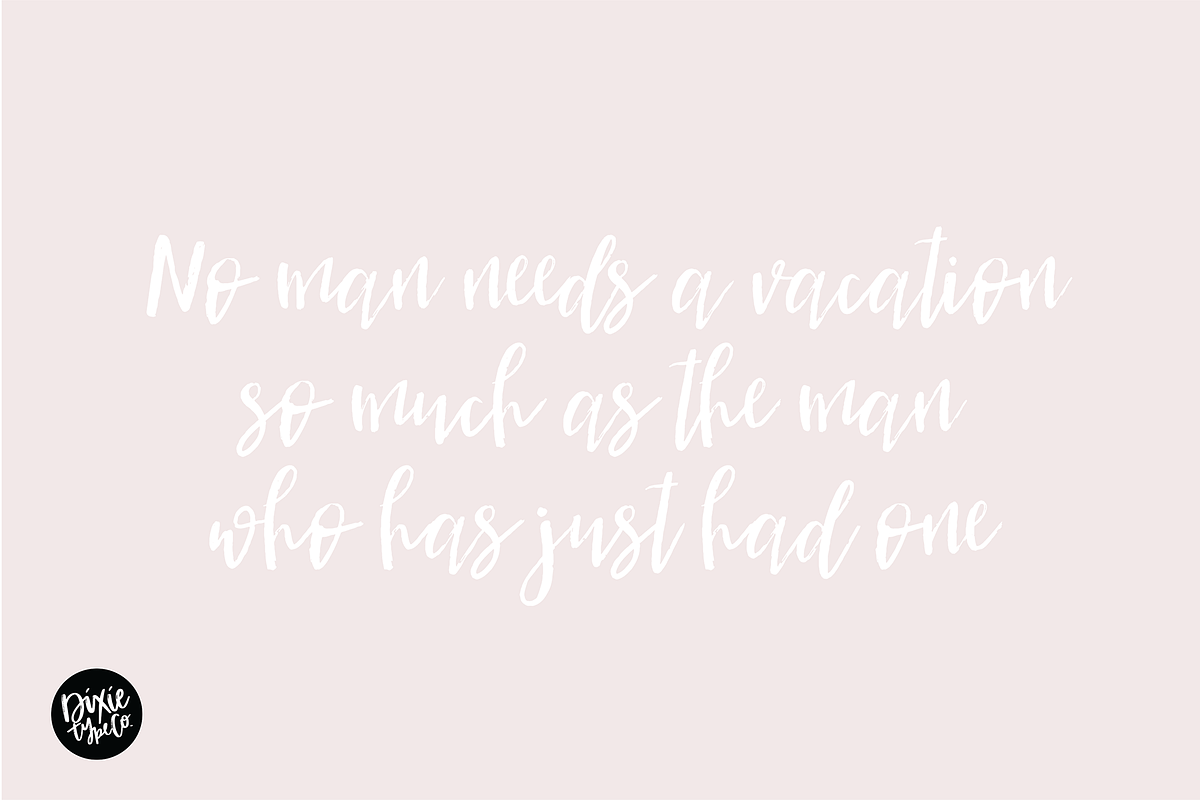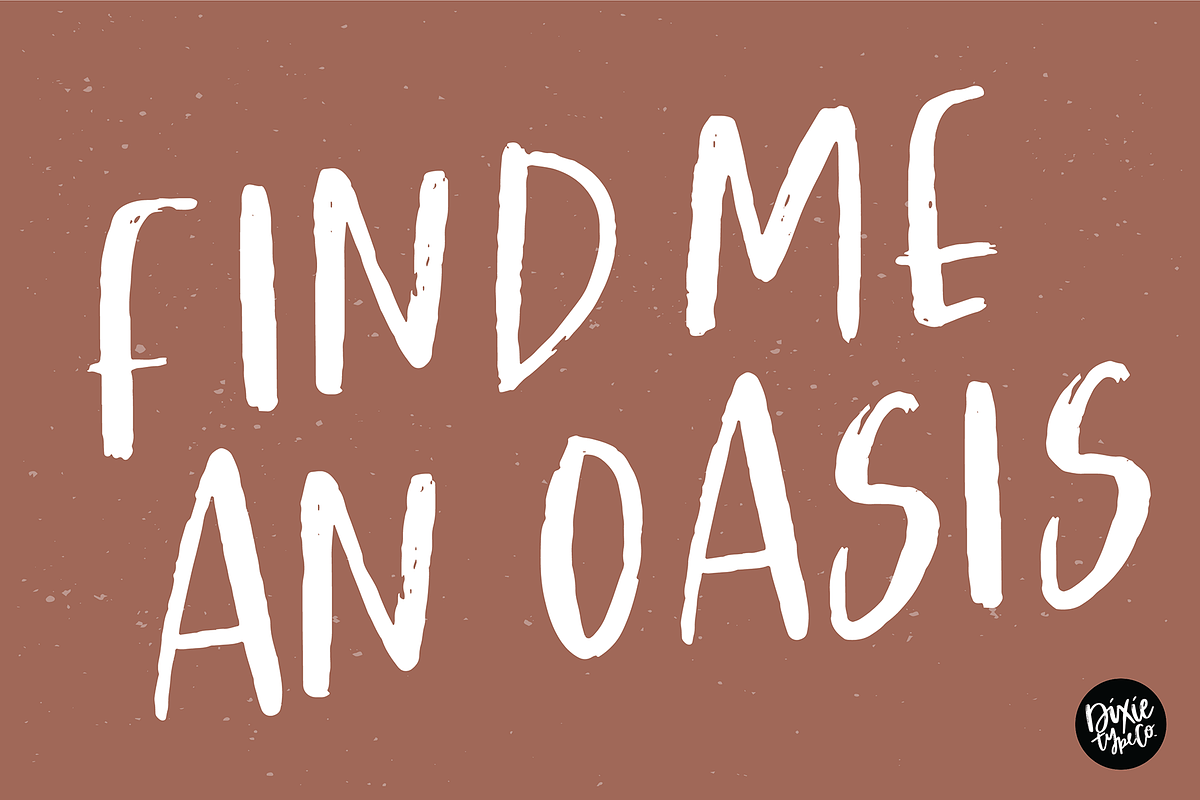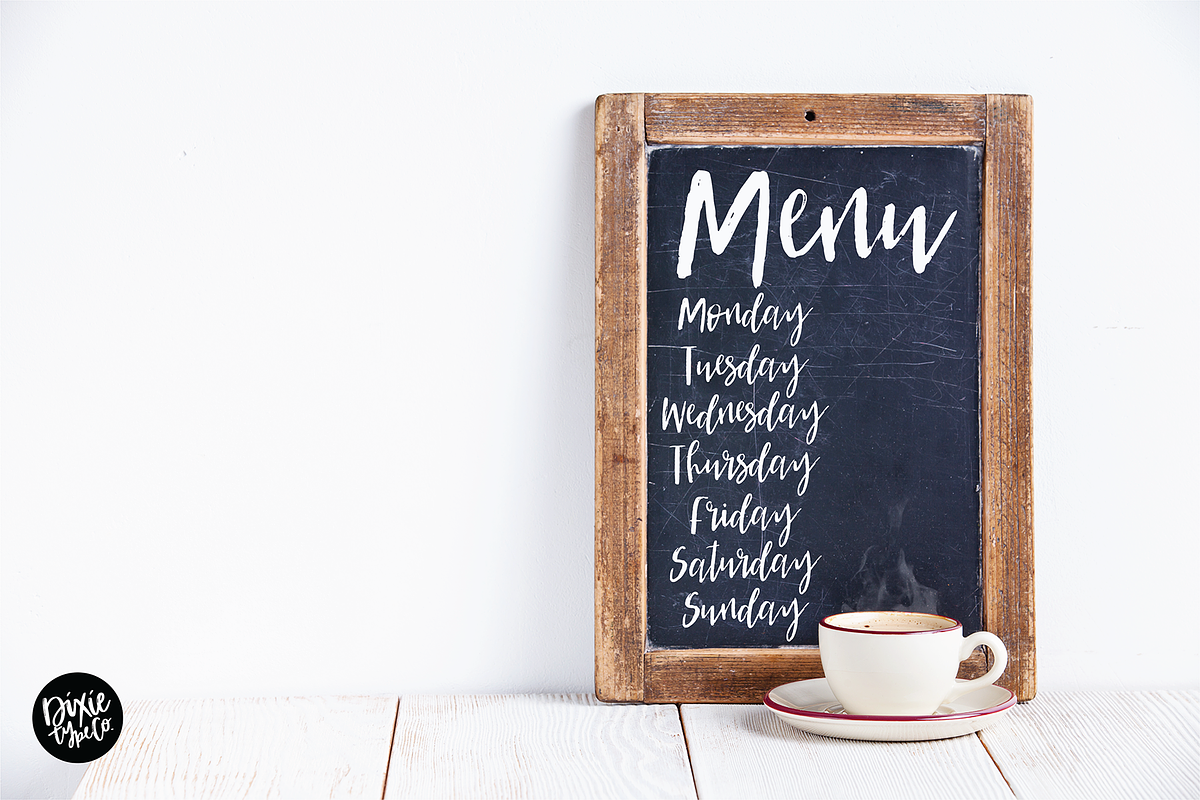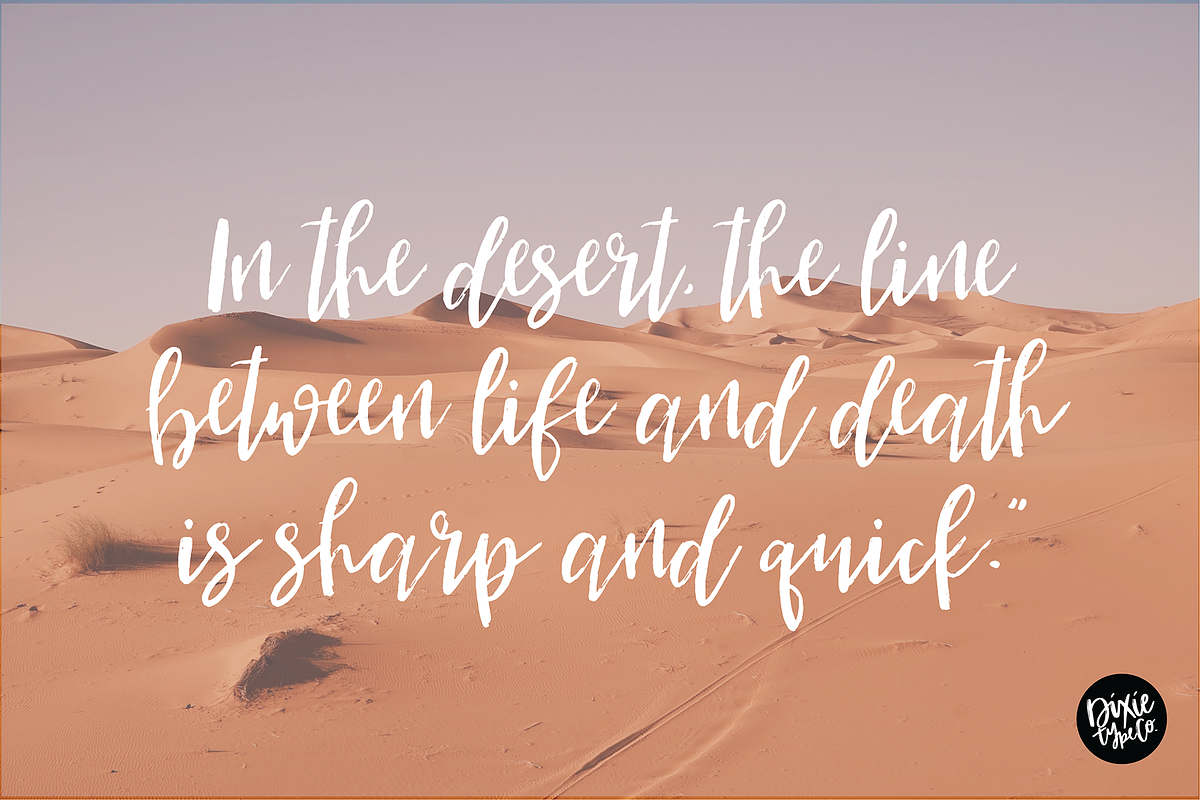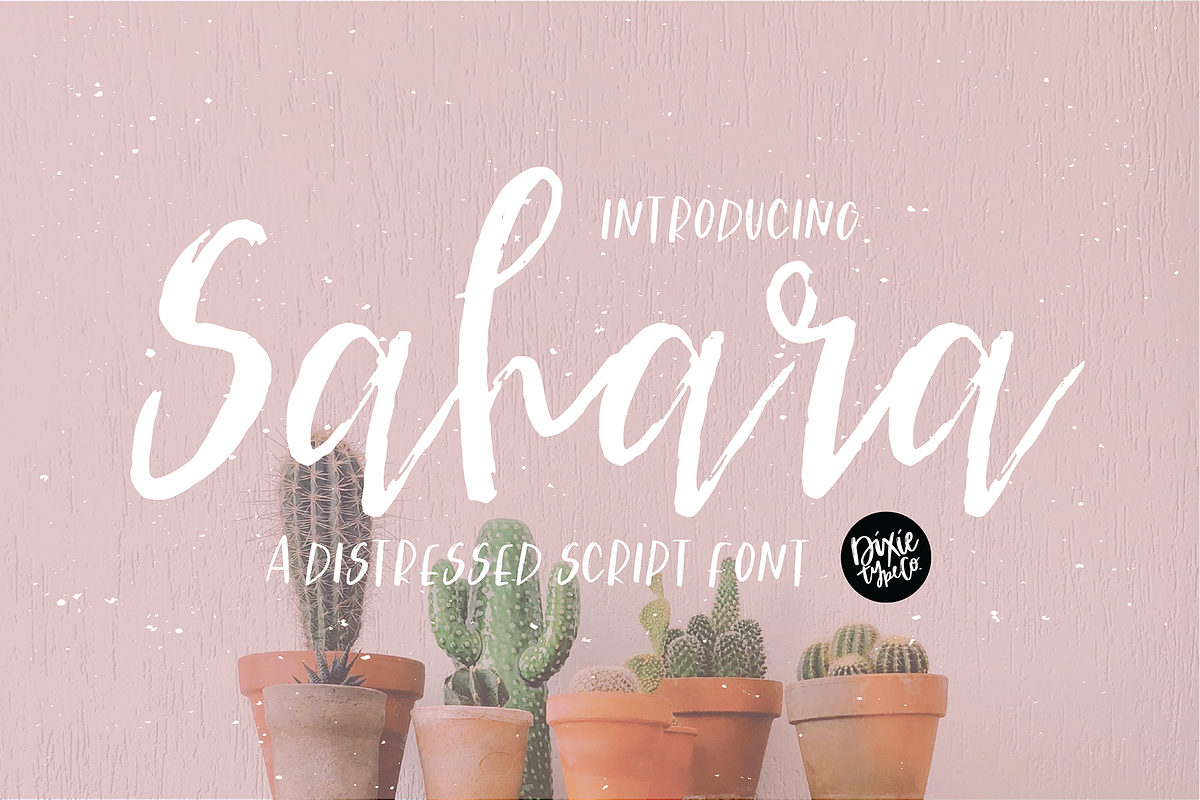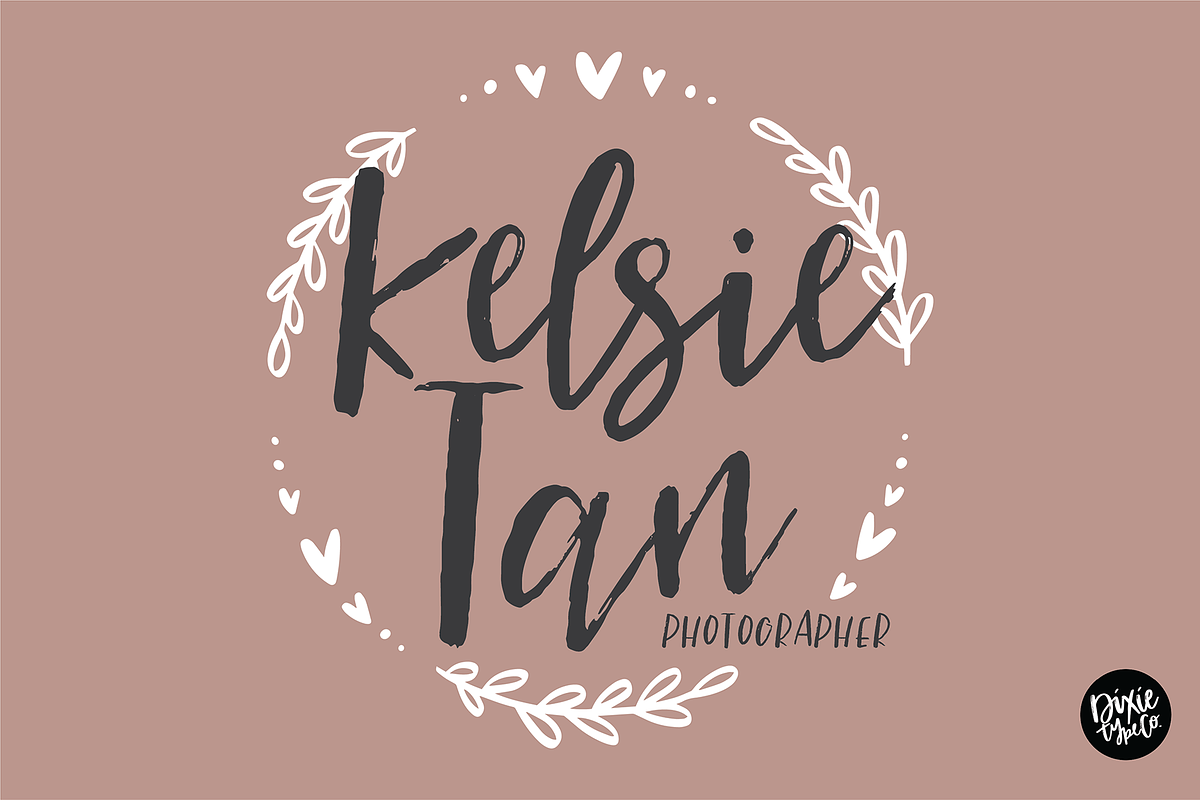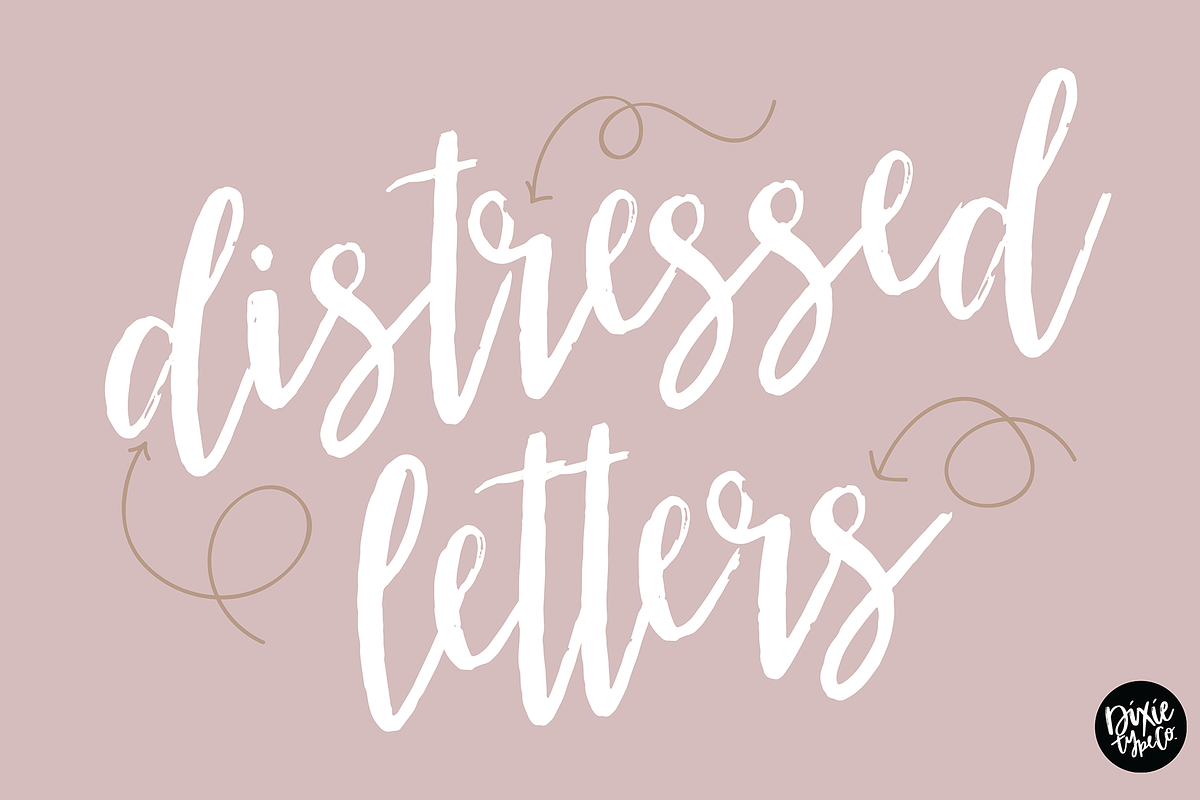
SAHARA a Distressed Script Font
{ A typographic font hand lettered with love by Dixie Type Co. }
Sahara is a dry brush lettered script font. This font has distressed edges and is not ideal for cutting.